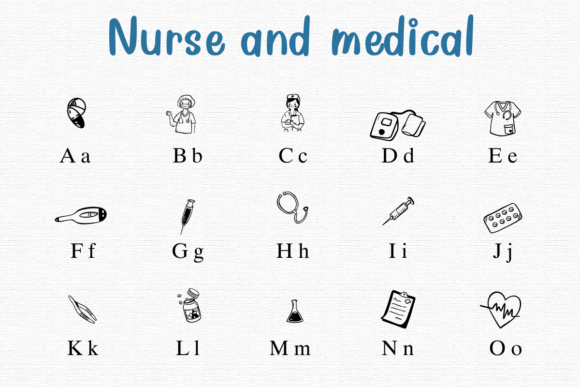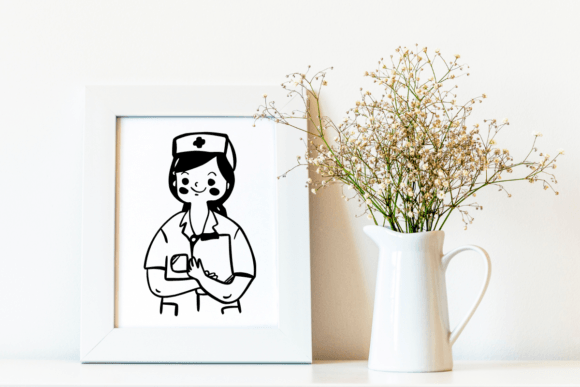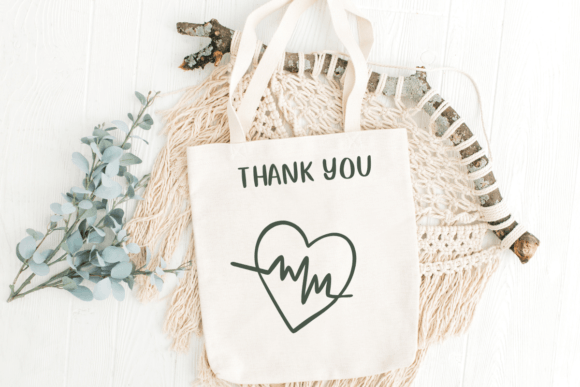
Nurse and Medical Font
Nurse and Medical Dingbat Font: A special type of font where each letter is designed as a small picture of nurses and medical items, like stethoscopes, bandages, and syringes. It’s a fun way to add healthcare-themed decorations to words and sentences.